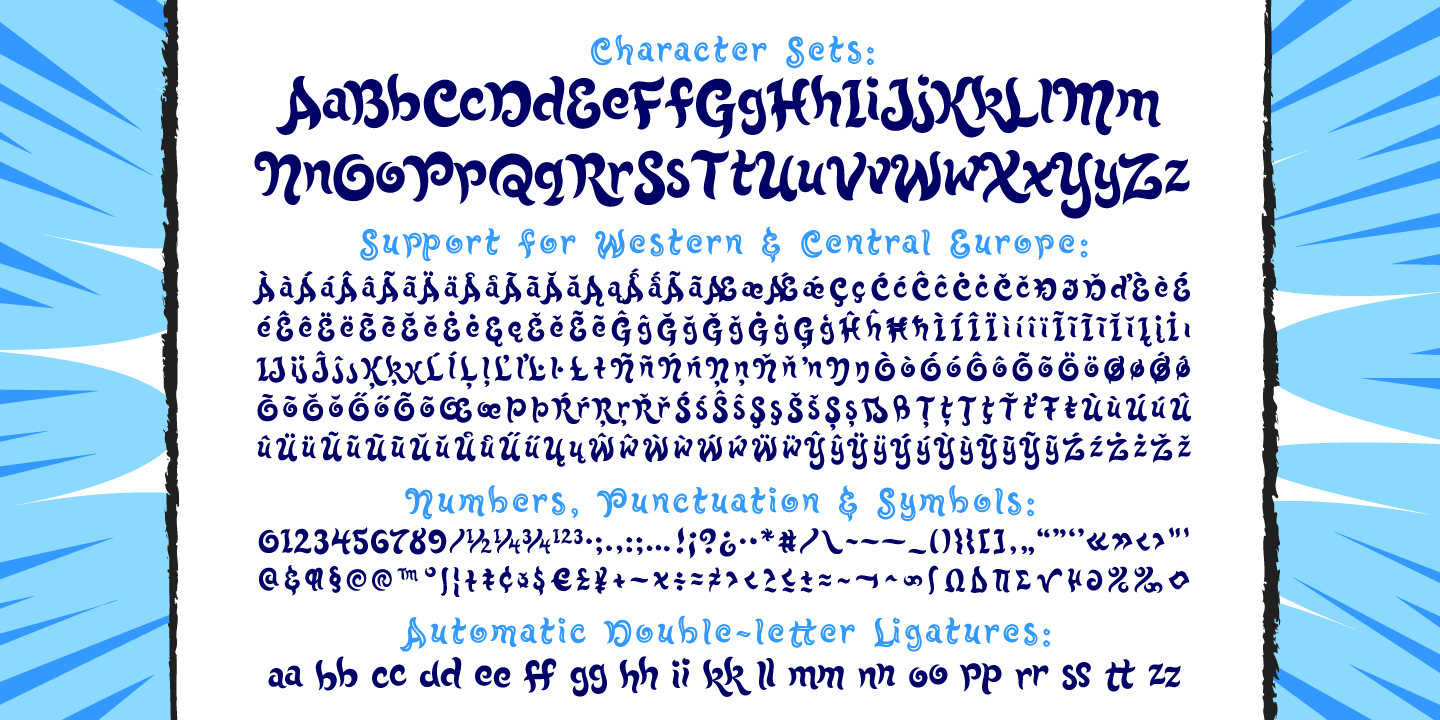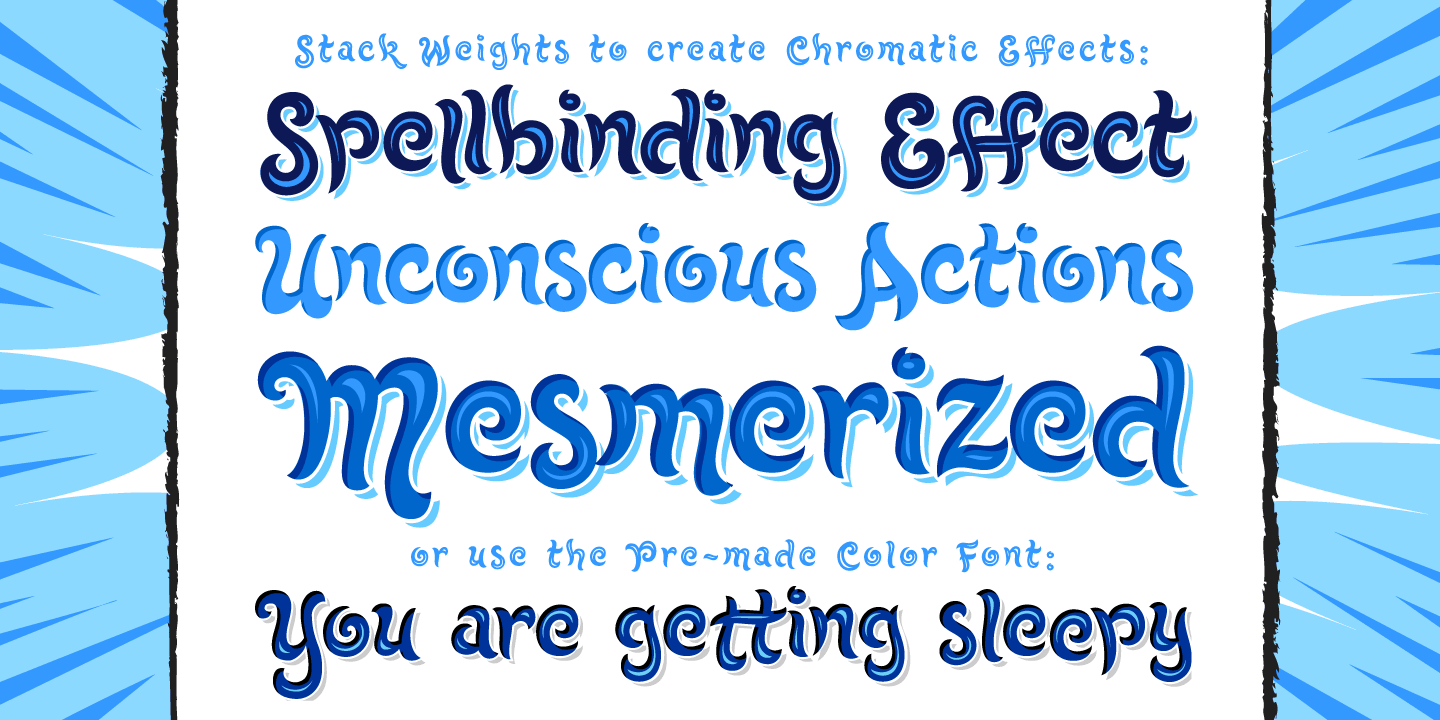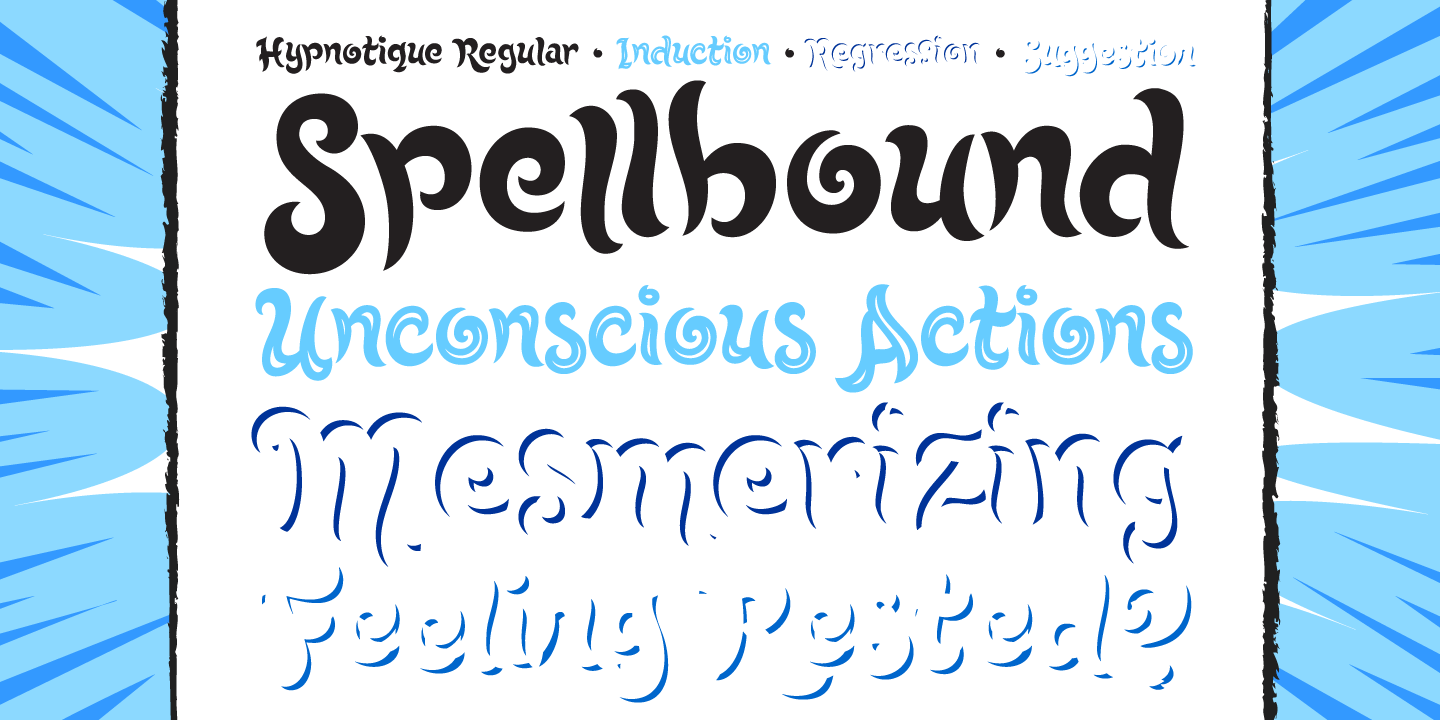
Hypnotique
Font Family by Comicraft Fonts
Do we have a volunteer from the audience! Yes, you young lady, step into the ring, there's no need to be afraid! What's your name? Hypnotique? How appropriate! Now, don't turn away, look into my eyes, the eyes, not around the eyes, don't look around my eyes, look into my eyes, aaaannnndd you're under.
And on the menu of mesmerism tonight is a waking dream of letterforms that will keep you on the threshold of consciousness and yet illuminate your every hypnagogic hallucination! Now that we have your focused attention and reduced your peripheral awareness you now have an enhanced capacity for response to the suggestion that you should not only purchase this font, but our entire library of fonts. On the count of three you will wake up and you will think of nothing else but acquiring all the tools all good graphic designers should have in their font library.
And all we had to do was snap our fingers.